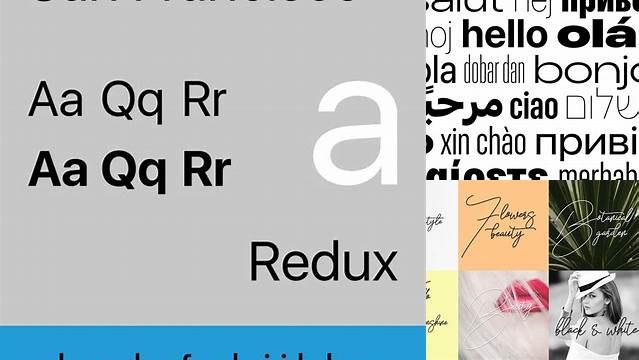
Free San Francisco Fonts: Stylish Typography Guide
Hey guys, looking for some awesome fonts to spice up your design projects? You've come to the right place! Today, we're diving headfirst into the world of free fonts specifically focusing on those with a San Francisco vibe. Whether you're a seasoned designer or just starting out, finding the perfect font can make all the difference. It sets the tone, conveys your message, and can even make your work pop. So, let's explore some fantastic free fonts San Francisco options that will help you create stunning visuals. We'll cover everything from classic styles to modern trends, ensuring you find the ideal fonts for your next project. This guide is designed to be your go-to resource for discovering, downloading, and using these fonts effectively. Get ready to elevate your design game with some amazing typography!
What Makes a Font "San Francisco"?
Alright, before we jump into the font recommendations, let's clarify what we mean by a "San Francisco" font. Think about the city itself: it's a blend of innovation, modernism, and a touch of classic charm. A San Francisco-inspired font often reflects these qualities. Generally, these fonts are clean, legible, and versatile. They typically have a modern aesthetic with a focus on readability, making them perfect for various applications. This means they work well for everything from website headers and body text to logos and print materials. Many of these fonts draw inspiration from the iconic architecture, tech culture, and overall aesthetic of San Francisco. You'll often find a balance between geometric shapes and more humanist letterforms, resulting in designs that are both functional and visually appealing. Key characteristics include clean lines, a sense of simplicity, and a focus on clarity. Some might lean towards a minimalist design, while others might have subtle curves and details that add a touch of personality. The goal is to create a design that is both visually interesting and easy to read. Keep in mind that the term "San Francisco-style" isn't just about fonts that are directly named after the city. It's more about capturing the spirit of the placeāthe innovation, the forward-thinking attitude, and the unique blend of old and new. The fonts we will be looking at aren't all directly San Francisco named, but they embody the ethos.
Top Free Fonts San Francisco-Inspired
Now, let's get to the good stuff! Hereās a list of some amazing free fonts San Francisco that capture the city's vibe. These fonts are ideal for a variety of projects, offering both style and functionality. Whether you're looking for a font for a website, a branding project, or just for fun, these options will definitely inspire you. Remember, the best font depends on your specific project. Consider the overall tone and message you're trying to convey when making your choice. Each font listed is available for free download and use (check the specific license for details!).
1. Open Sans
Open Sans is a popular choice for a good reason, and it's often considered a great free fonts San Francisco option. It's a highly legible, neutral sans-serif typeface. Designed by Steve Matteson, Open Sans was created specifically for screen use. The font's open forms and friendly appearance make it incredibly versatile. The font has a wide character set that includes Latin, Greek, and Cyrillic scripts, so it can support a variety of languages. It's perfect for body text, headings, and everything in between. The font's clean and modern design makes it a great fit for websites, apps, and printed materials. You can find it on Google Fonts, making it incredibly easy to download and implement in your projects. Because of its versatility, you can use Open Sans for practically anything. Its simplicity and legibility make it a solid choice for any project needing clear communication. The typeface balances a modern aesthetic with excellent readability, fitting perfectly into projects inspired by the San Francisco design philosophy. This means it won't distract the user from the content but will instead enhance the readability. It is a great foundation for any project.
2. Montserrat
Montserrat is another awesome option, and a classic example for free fonts San Francisco style. Inspired by the urban signage of the Montserrat neighborhood in Buenos Aires, this font brings a touch of geometric design to the table. The designer, Julieta Ulanovsky, created this font to preserve the beauty of the historical typography found in her neighborhood. It offers a range of weights and styles, making it suitable for a variety of design tasks. This flexibility is a key reason it's a favorite among designers. Montserrat is a great choice for headlines, titles, and other display text where you want to make a statement. The fontās clean lines and bold appearance allow it to stand out. It is perfect for branding projects, websites, and social media graphics. The various weights allow you to create visual hierarchy and to use a variety of styles. Montserrat provides a fresh take on the traditional sans-serif font and is ideal for any designer looking to create a modern and eye-catching design. This font provides a wonderful option when you need a versatile and strong typeface. Because of its bold presence, the font is suitable for modern and eye-catching designs.
3. Lato
Lato is a well-rounded sans-serif font designed by Åukasz Dziedzic. Itās a great example of the free fonts San Francisco vibe. Initially created as a corporate typeface, it's become a popular choice because of its balance of functionality and elegance. It is legible and provides a friendly appearance. Lato is designed to be a good choice for both headings and body text, making it a versatile option. The font features a semi-rounded structure that gives it a warm and approachable feel. The multiple weights and styles allow for flexibility in design. This makes Lato ideal for various projects such as websites, print materials, and branding. The fonts' versatility makes it a solid choice for many different design needs. Lato has the ability to seamlessly blend functionality with elegance. This makes it a great choice for projects looking for both readability and style. The font's classic design with a modern twist embodies the spirit of San Francisco design. It's the type of font that's both trustworthy and stylish, which makes it a great option for designers.
4. Roboto
Roboto is another popular choice to fit into the free fonts San Francisco category. Designed by Christian Robertson, this font is used extensively by Google and is a favorite among designers. It's a modern sans-serif typeface known for its versatility and clean lines. Roboto is designed to be a highly readable font, making it an excellent choice for a variety of uses. It features a mechanical structure with open curves, providing a balance between readability and style. It's available in various weights and styles, which gives you plenty of design flexibility. The font is well-suited for both digital and print media. Roboto works well in websites, mobile applications, and printed materials, offering a professional and modern look. Its popularity is due to its clean appearance. It is easily readable at various sizes, which allows designers to create visually appealing and user-friendly designs. The fontās clean lines and geometric shapes make it an excellent choice for anyone looking to create modern and approachable designs, making it a great choice for projects where readability is a must.
How to Use These Free Fonts Effectively
So, youāve got these awesome free fonts San Francisco options. Now what? Knowing how to use them correctly is key to creating professional designs. Here are some tips:
- Pair Fonts Wisely: Donāt just pick one font and use it everywhere. Experiment with font pairings! Combine a clean sans-serif for headings (like Montserrat or Open Sans) with a more delicate or playful font for body text. Think about the contrast and how the fonts complement each other. This is a crucial step that is often overlooked. Consider the tone of your design and how the two fonts align with the overall message. Good font pairings can enhance readability and make your design more visually engaging.
- Consider Readability: Always prioritize readability. Ensure the font size and spacing are appropriate for the medium. Body text should be easy to read, so avoid using overly decorative fonts for large blocks of text. Keep in mind that readability is crucial to make sure your message is easily understood. Ensure the font is legible at different sizes and on various devices. This is especially important for websites and mobile apps where users can view your content from different devices.
- Maintain Consistency: Establish a consistent typographic style throughout your design. Use the same font for headings, subheadings, and body text across all pages or materials. This ensures a cohesive and professional look. Consistency in the use of your fonts creates a strong brand identity. This helps establish a recognizable visual style. It is essential to create a cohesive design, from the smallest details to the overall composition.
Guys, there you have it! A comprehensive guide to free fonts San Francisco and how to use them effectively. Remember that choosing the right font can significantly impact your designs. By exploring these options and following the tips provided, you can create beautiful and functional visuals that capture the essence of San Francisco style. Happy designing! Go forth and create something amazing!